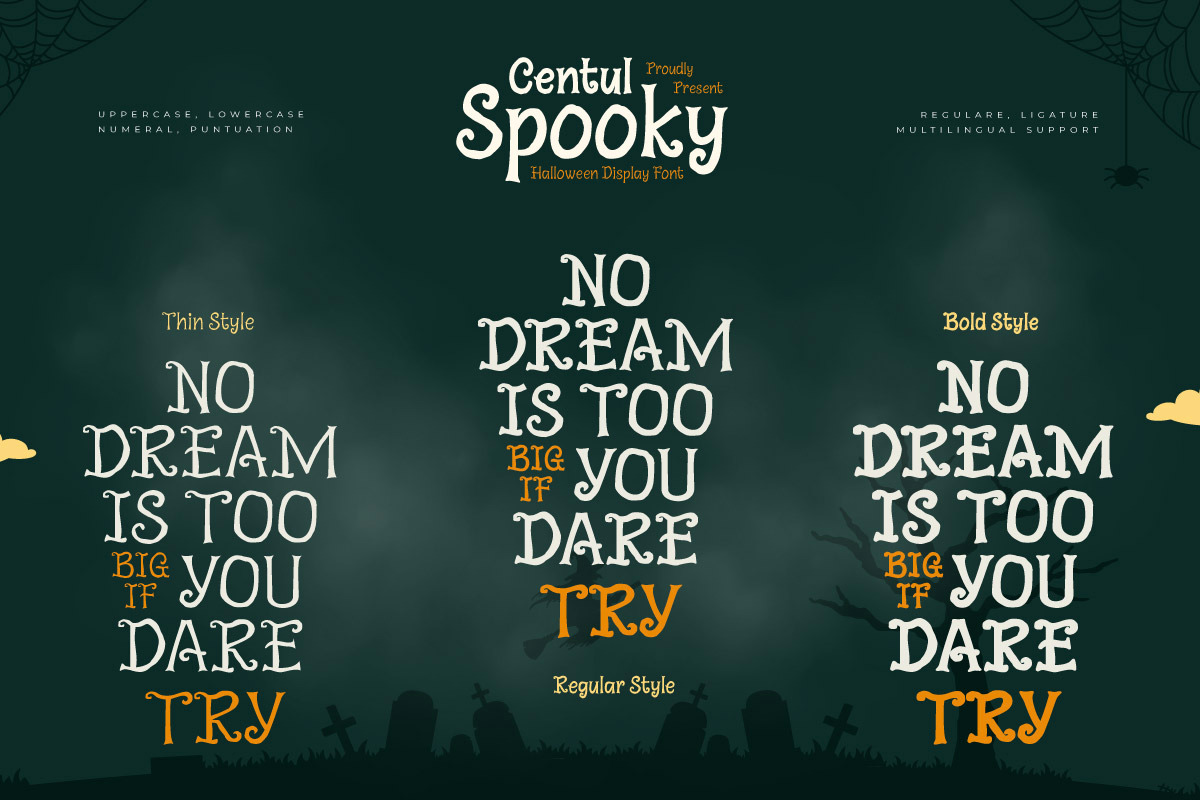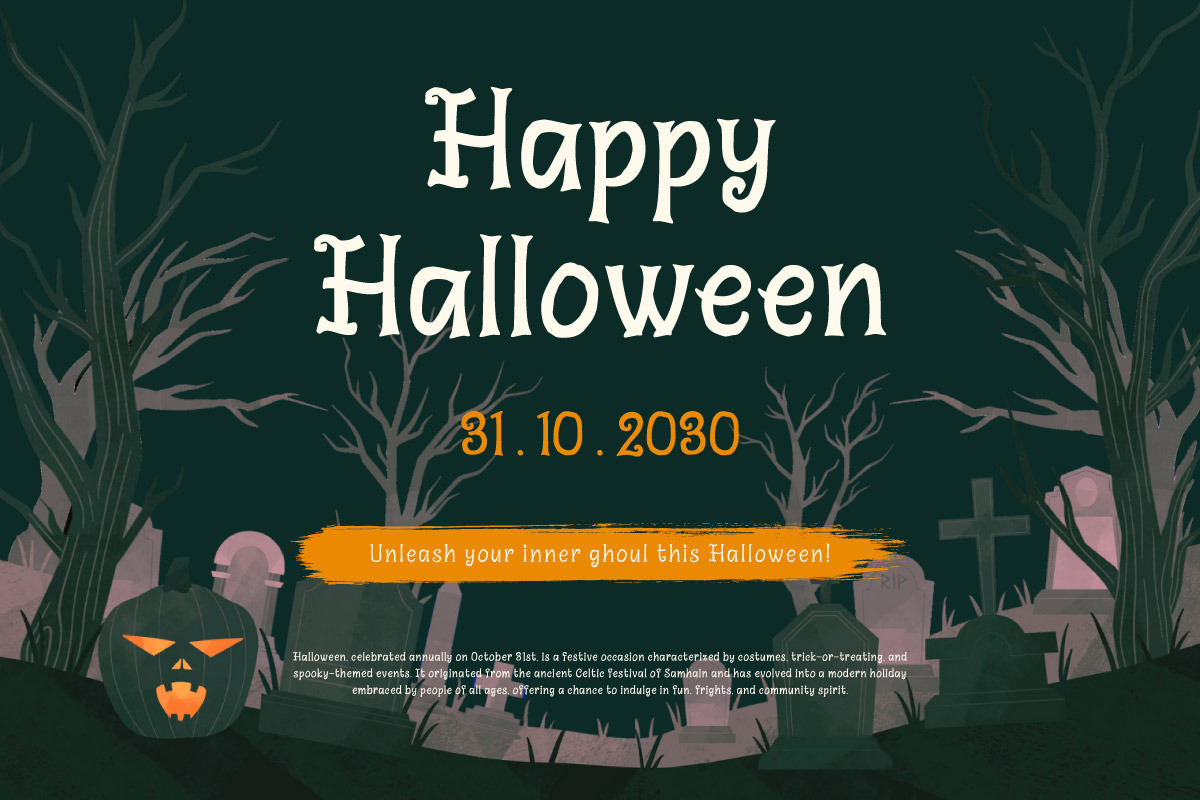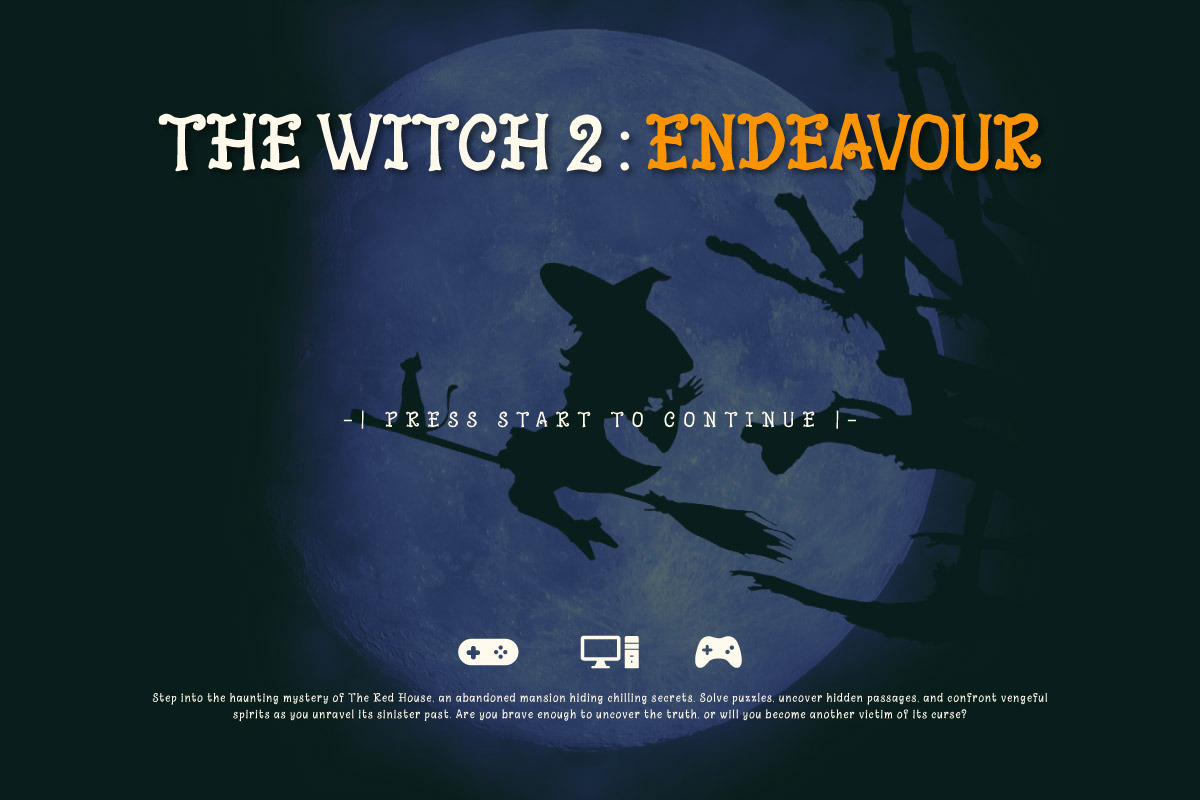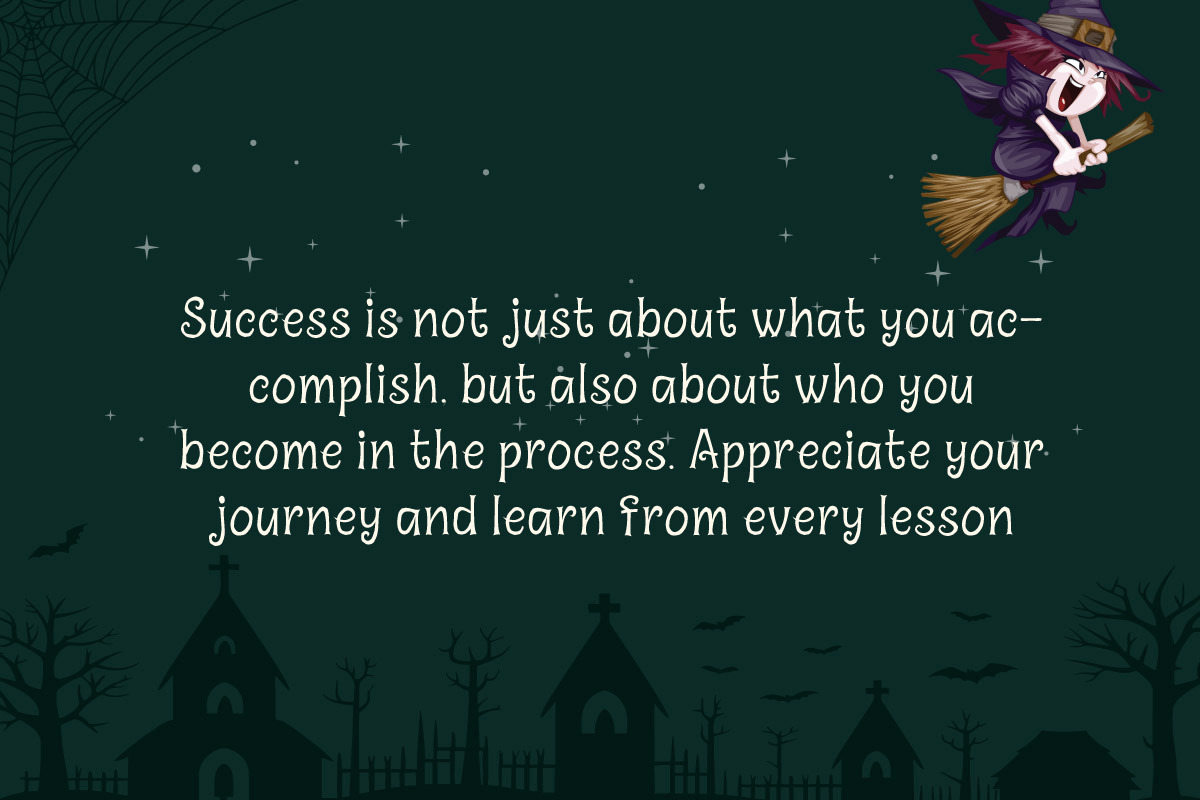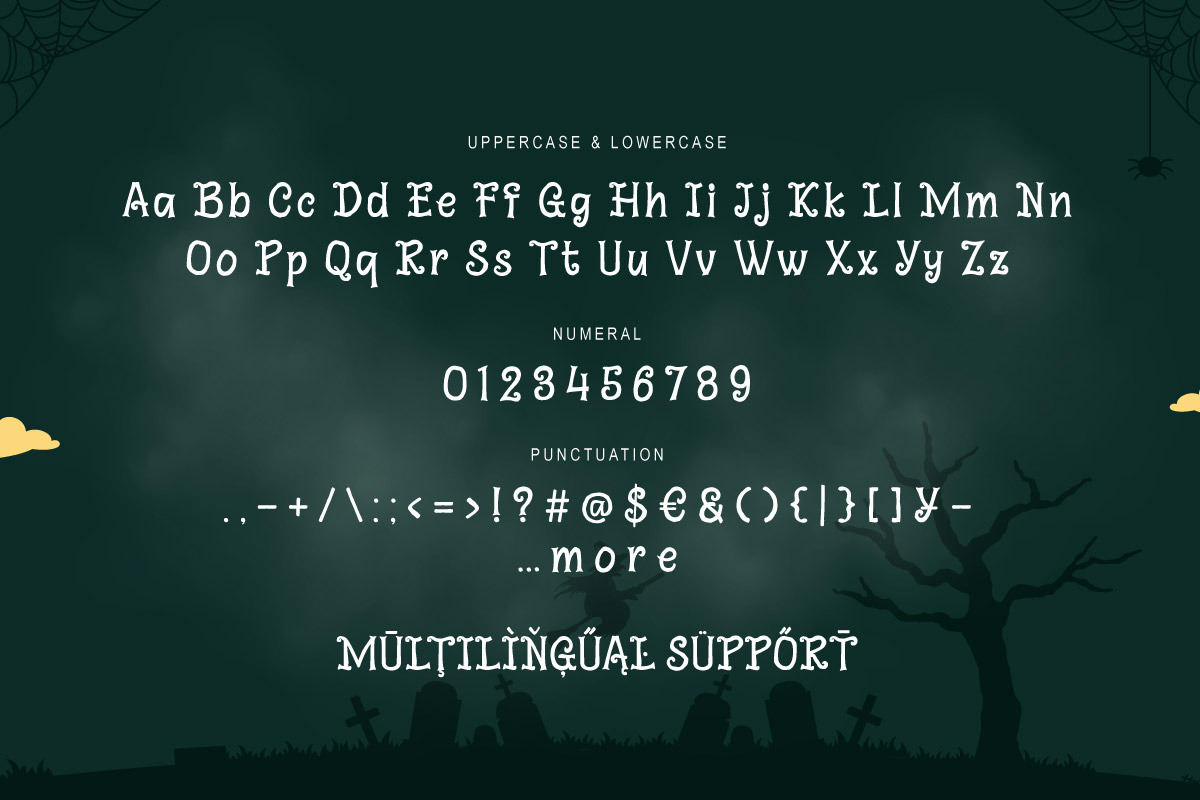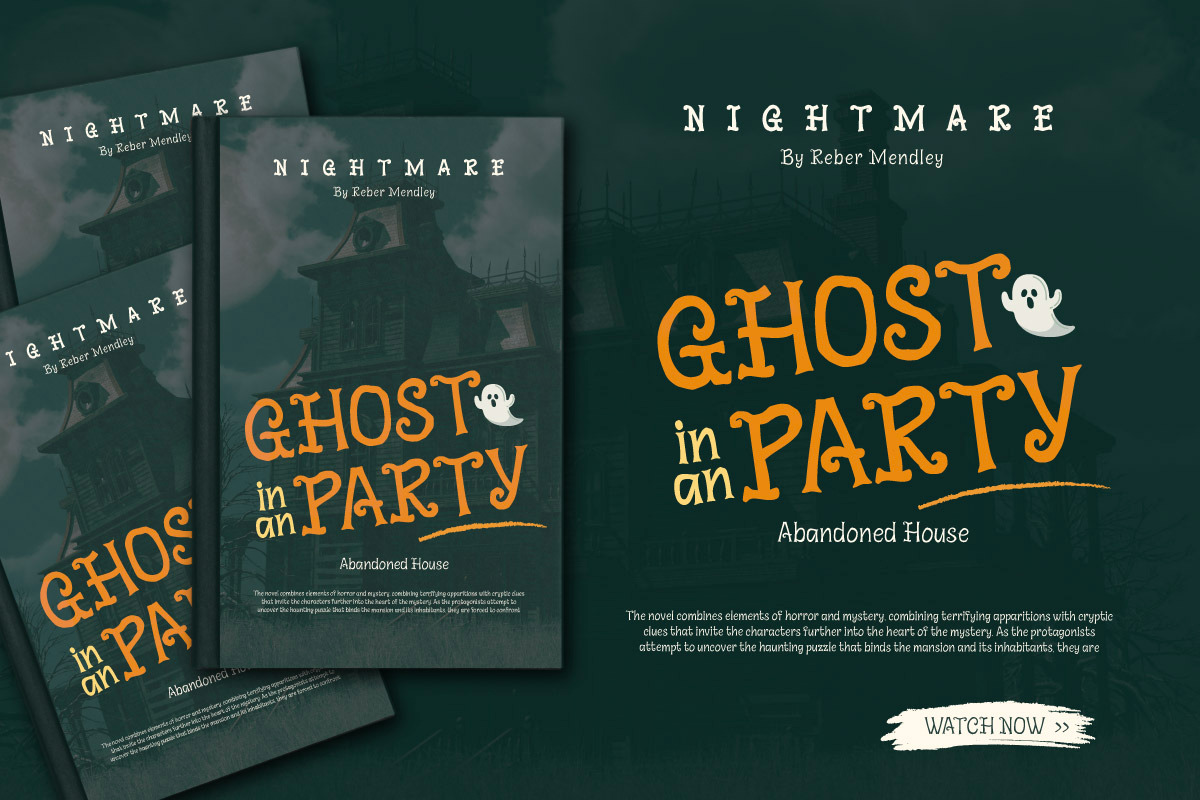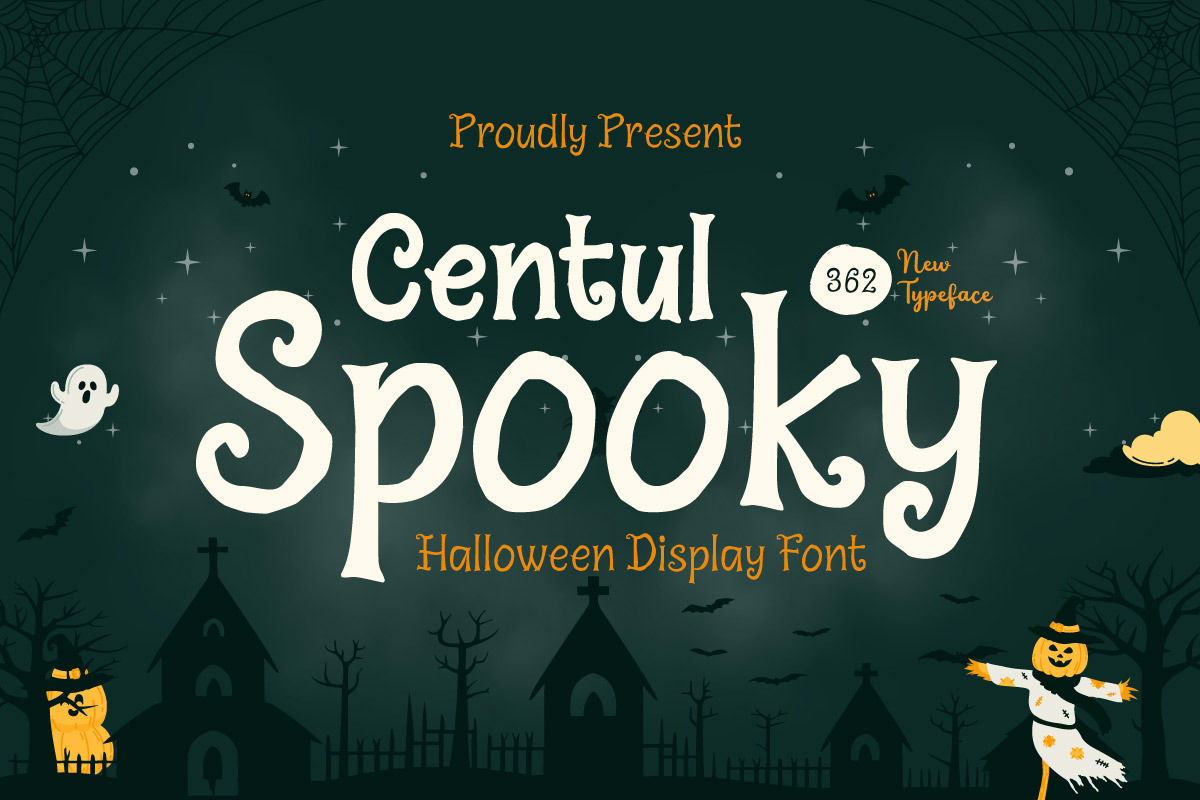
Centul Spooky - Halloweeen Font
Centul Spooky - Halloween Font is a cheerful yet spooky typeface, perfect for Halloween-themed designs. With unique and spooky letterforms, this font adds a fun and eerie feel to posters, party invitations, packaging, and any project that needs a touch of spooky charm. Centul Spooky captures the essence of Halloween with its whimsical and spooky design, making it perfect for fun yet playful creations.
Prepare your Halloween designs with Centul Spooky and bring a fun, spooky spirit to your next project!
- Fonts include Multilingual: Support for 85 languages. Afrikaans, Albanian, Asu, Basque, Bemba, Bena, Breton, Catalan, Chiga, Cornish, Croatian, Czech, Danish, Dutch, Embu, English, Esperanto, Estonian, Filipino, Finnish, French, Friulian, Galician, Gusii, Hungarian, Indonesian, Irish, Italian, Kabuverdianu, Kalenjin, Kamba, Kikuyu, Kinyarwanda, Latvian, Lithuanian, Lower, Sorbian, Luo, Luxembourgish, Luyia, Machame, Makhuwa-Meetto, Makonde, Malagasy, Maltese, Manx, Meru, Morisyen, North, Ndebele, Norwegian Bokmål, Norwegian Nynorsk, Nyankole, Oromo, Polish, Portuguese, Quechua, Romanian, Romansh, Rombo, Rundi, Rwa, Samburu, Sango, Sangu, Scottish, Gaelic, Sena, Serbian, Shambala, Shona, Slovak, Slovenian, Soga, Somali, Spanish, Swahili, Swedish, Swiss German, Taita, Teso, Turkish, Upper Sorbian, Uzbek (Latin), Volapük, Vunjo, Walser, Zulu.